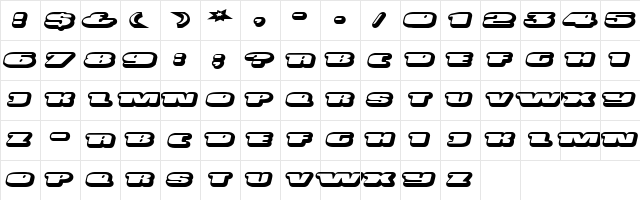
Cord Grob Font Preview
Cord Grob
Cord Grob Font Details
| Style | Grob |
Design Context for Cord Typeface
Cord is a composed and adaptable typeface that performs quietly and consistently across a wide range of design contexts.